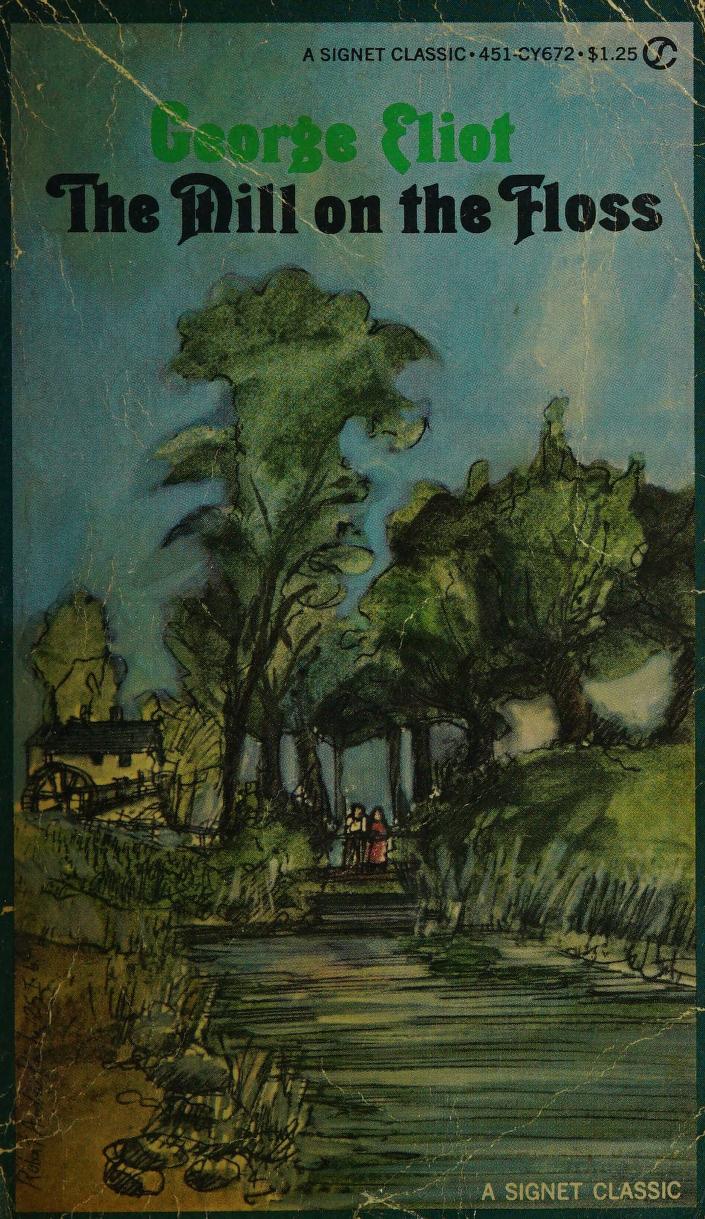
The Mill on the Floss Font
BookThe Mill on the Floss (1965 edition) is a novel by George Eliot, first published in 1860. It follows the story of siblings Tom and Maggie Tulliver growing up in the rural English countryside.
The book title "The Mill on the Floss" is likely set in Thalia, an art deco typeface created by Ralph M. Unger based on the style of 1900s printing. More information about the typeface can be found here.